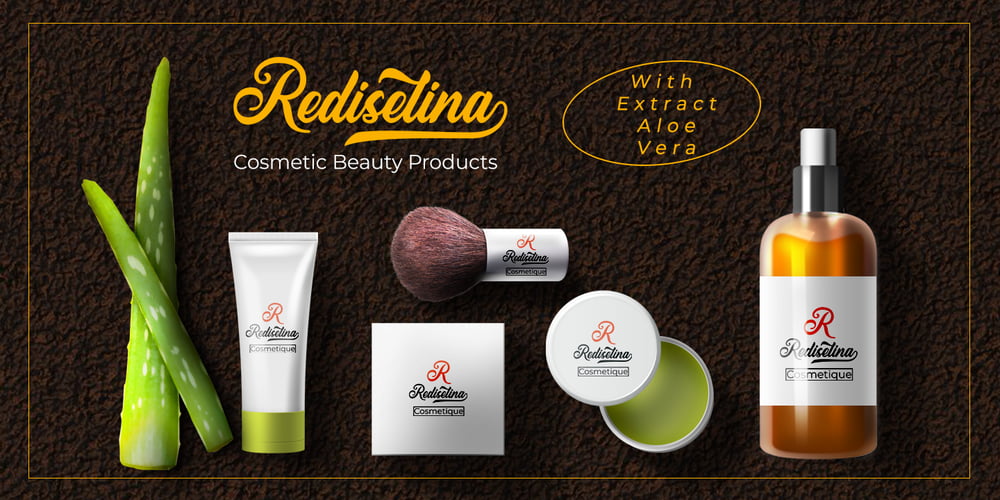
Firstland Font Family was designed by May Adifarzan muis and published by Matra Creative. Firstland contains 1 styles and family package options. Firstland-Handwritten Fonts have many alternatives that give you the possibility to make your text almost handwritten with all the imperfections and captivating variations that the original handwriting has. Firstland will work perfectly for fashion, brand e-commerce, blog trends, boutiques, store brands, logos, weddings or any business that wants to look luxurious.